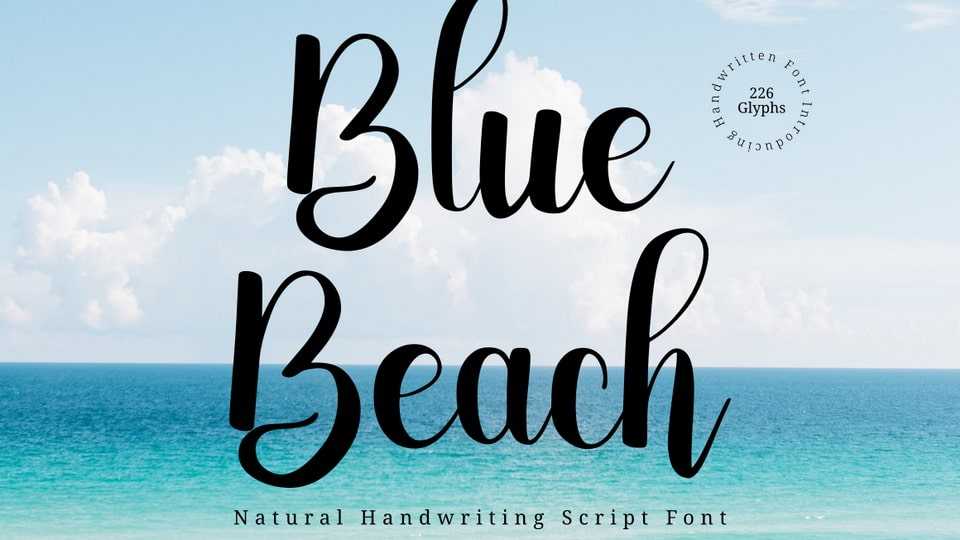
Download Blue Beach font, a beautiful and natural handwriting script font. Blue Beach font is suitable for logotype, headline, in corporate identity, apparel, poster, music, movie, game, magazine, book or any of your creative design projects.
Designer: Rissyletter Studio